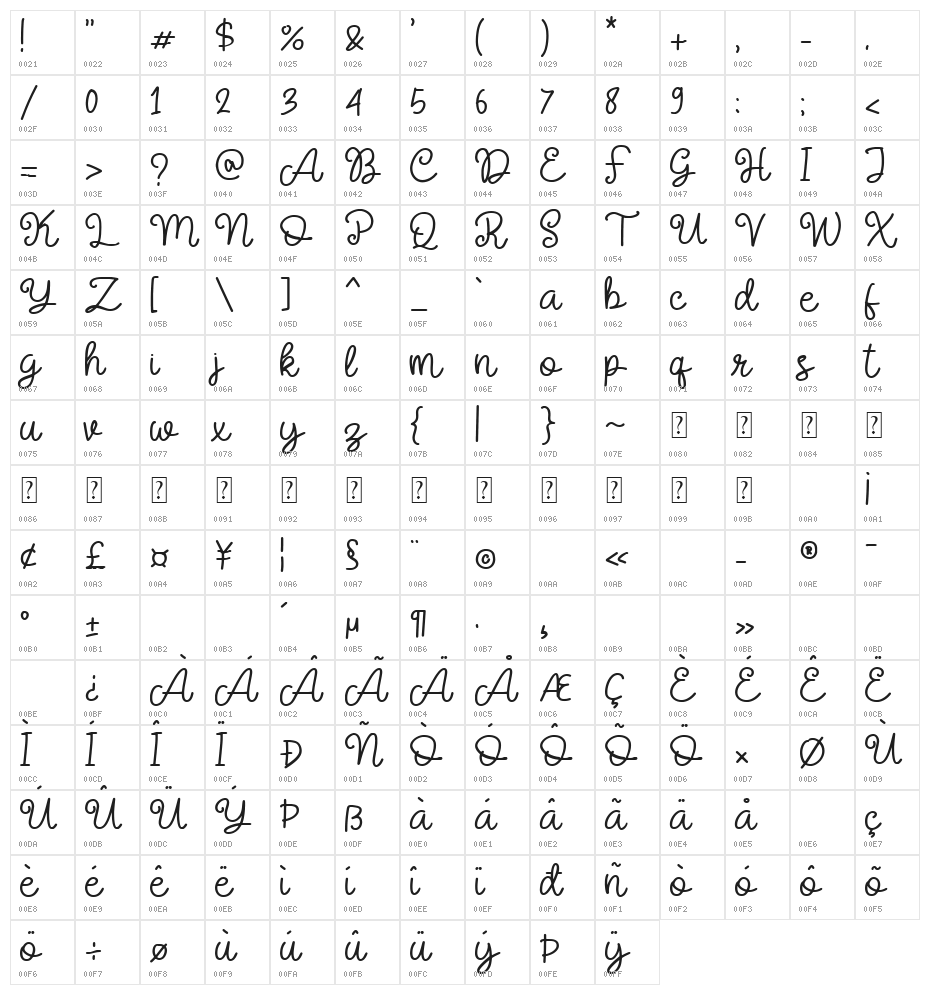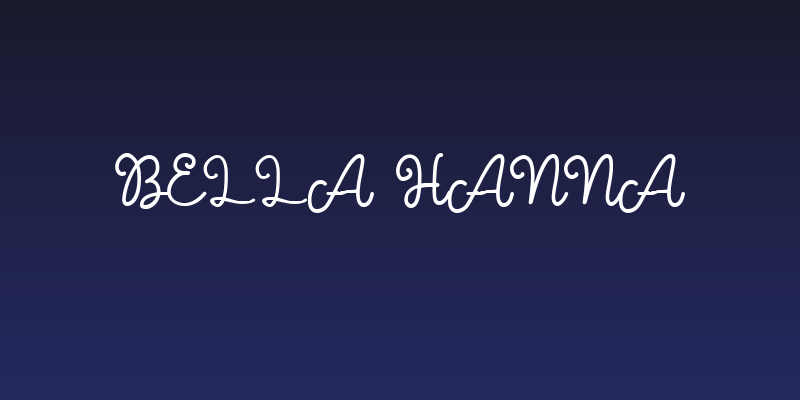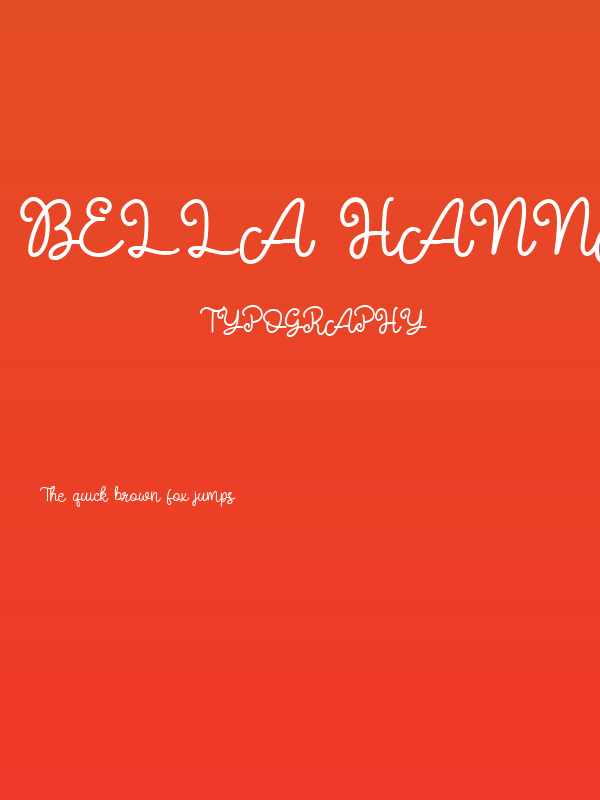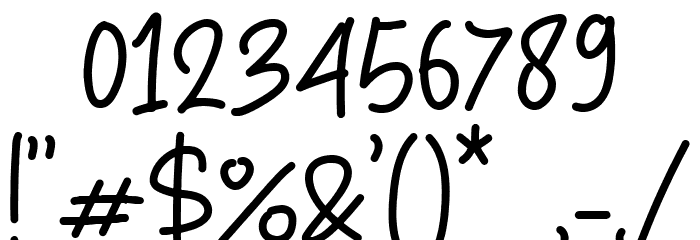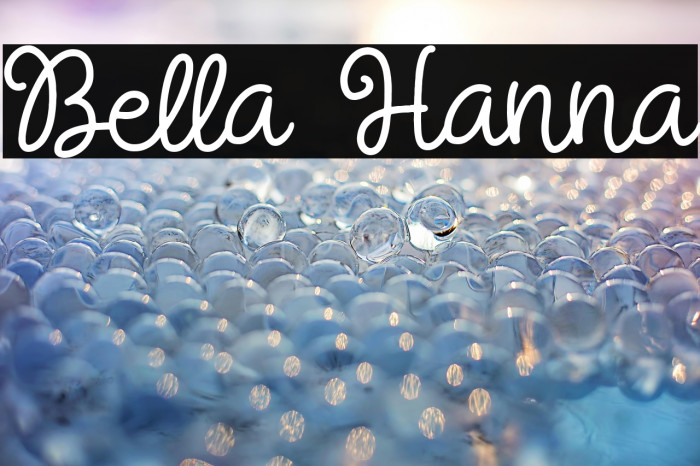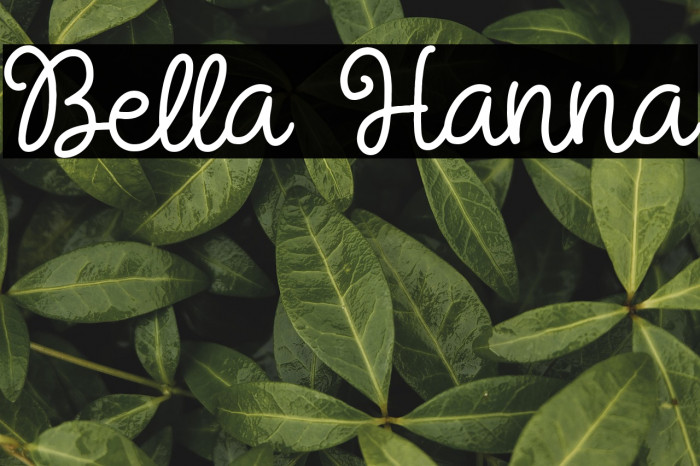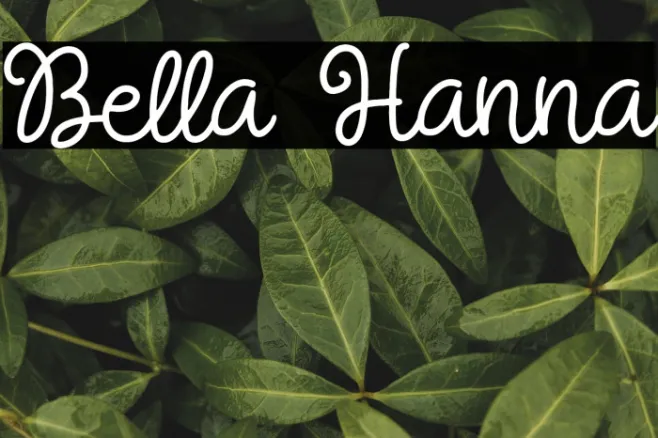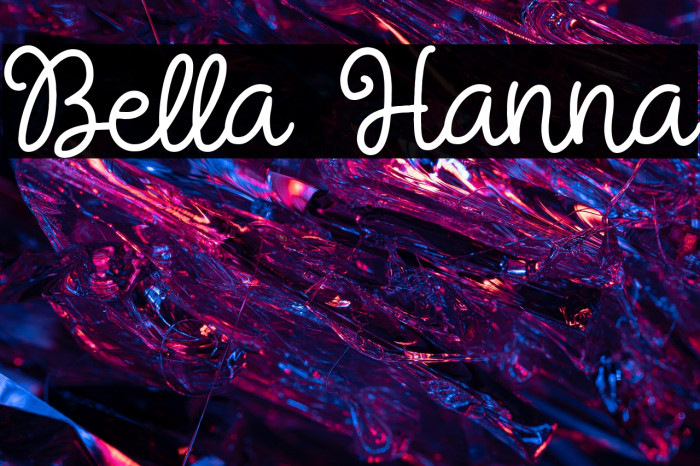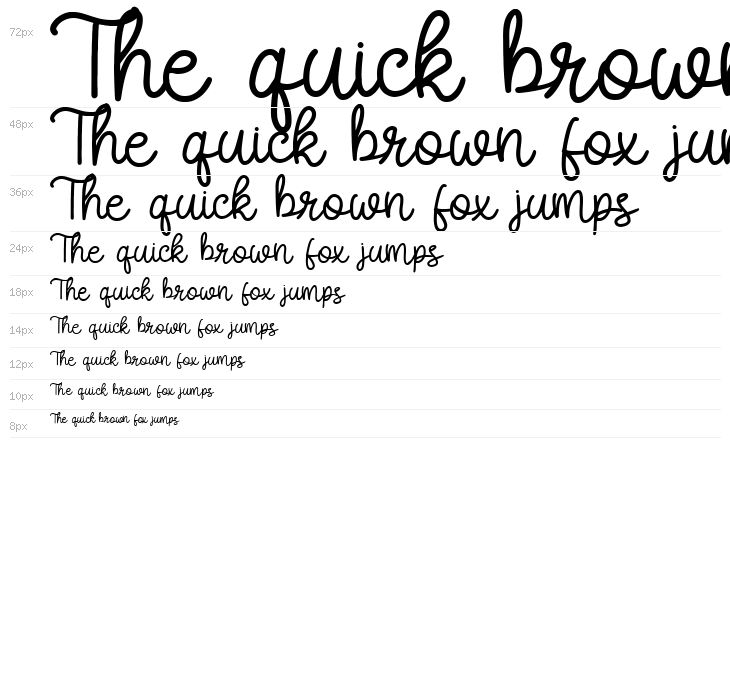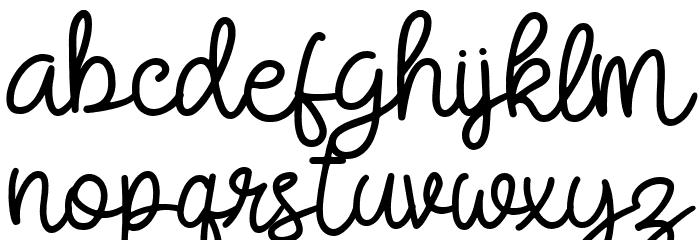
Bella Hanna Font
Bella Hanna Description
This font features a playful and elegant script style with a handwritten appearance. The letters are connected, giving it a fluid and continuous look, reminiscent of cursive handwriting. The uppercase letters are slightly more ornate, with loops and swirls that add a touch of sophistication. The lowercase letters maintain a consistent flow, with rounded edges and smooth curves. Numbers and special characters are designed to match the overall style, ensuring a cohesive appearance across all text. This font exudes a friendly and approachable vibe, making it suitable for a variety of creative projects.